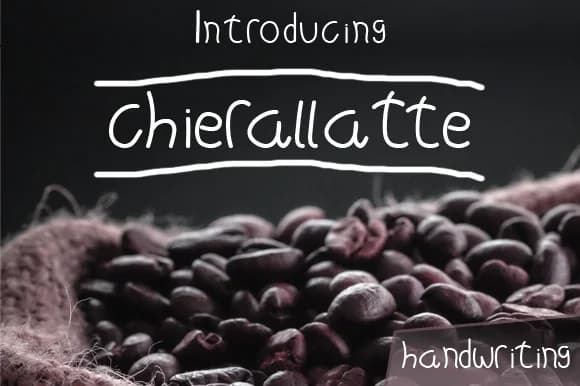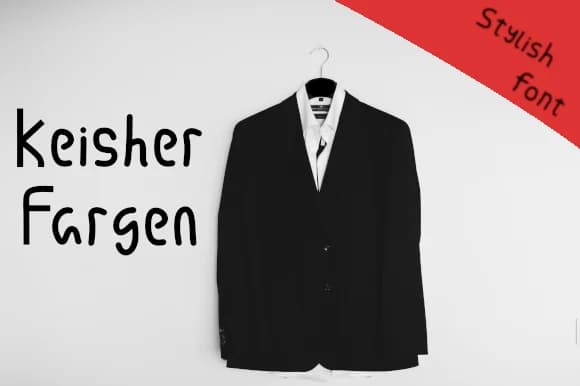
1 / 2About Alietarozan Font
Picture yourself addressing wedding invitation suites with script that feels genuinely personal, not mass-produced. Alietarozan, created by Cocoriscranjy, is a handwritten font that captures that casual-but-intentional energy designers crave when they want work that stands out without obvious effort. The letterforms dance with character while staying readable, making it equally suited to Etsy product labels, DIY craft signs, custom greeting cards, or boutique skincare packaging.
What makes Alietarozan work is its balance between loose, sketchy charm and enough control that the letterforms stay consistent across different sizes and contexts. You could use it for hand-lettered thank-you notes, personalized gift tags, or event menus where the handwritten quality adds warmth without sacrificing clarity. The organic flow of each letter means your layouts never feel stiff, even when working within rigid grids or minimal compositions that need breathing room.
Use Alietarozan as a headline workhorse or let it shine across larger compositions: the handwritten quality reads naturally at any scale. Its casual confidence works equally well in decorative and straightforward design contexts. Grab it from Creative Fabrica and start creating work that genuinely feels handmade.
Alietarozan Font is a script font that shines as a display or heading face. Pair it with a clean sans-serif or serif font for body text β the contrast creates a clear hierarchy while the two styles stay balanced and easy to read.